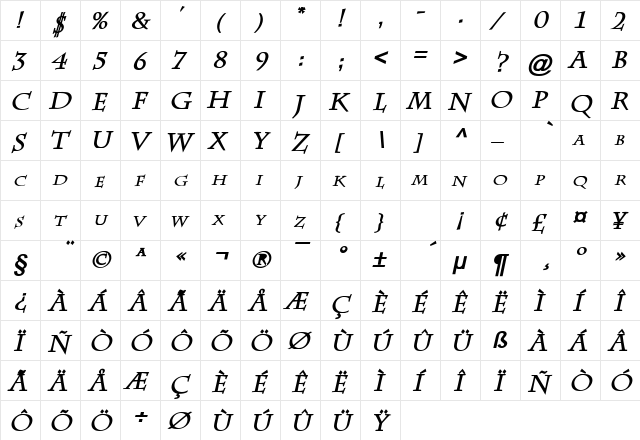
Chaz Bold Italic
Design Context for Chaz Typeface
Chaz is a composed and adaptable typeface that performs quietly and consistently across a wide range of design contexts. The slanted form adds forward momentum and visual energy. Its bold stroke weight gives it real presence on the page.
Pro Tip: Try Chaz for annotation and caption copy alongside an upright companion — the contrast in angle creates a dynamic but ordered typographic system.